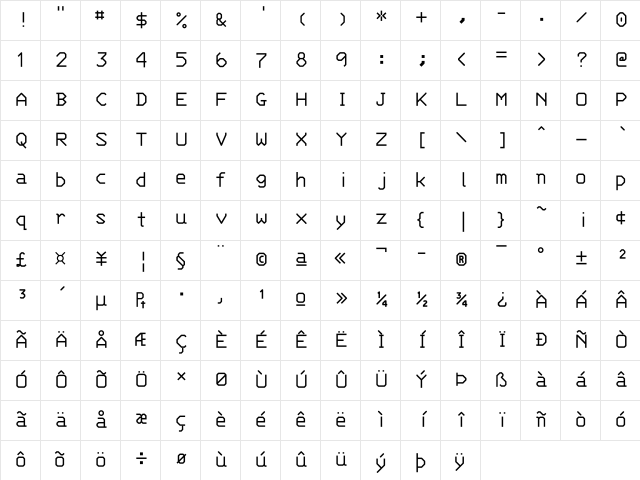
Complete 3270SemiNarrow Nerd Font Mono Medium glyph index. Displaying only characters natively supported by 3270SemiNarrow Nerd Font Mono Medium font.
3270SemiNarrow Nerd Font Mono uses fixed-width spacing throughout, giving it the structured, systematic character associated with coding environments and technical documentation.